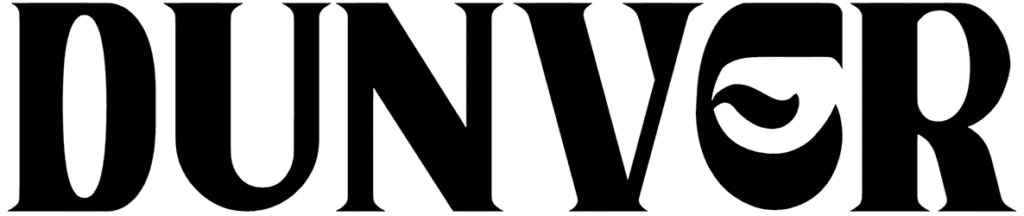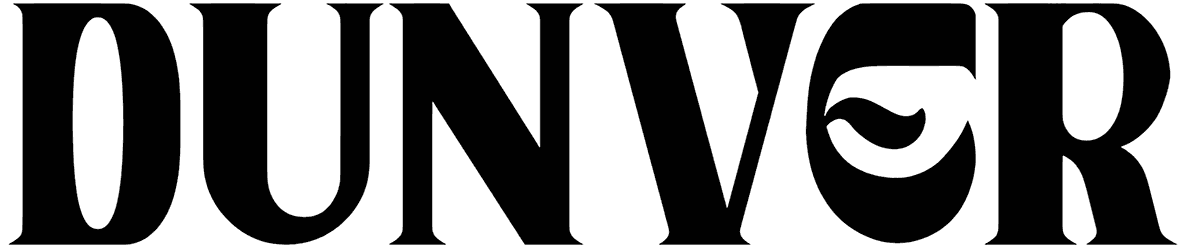
Dunver Font
Sometimes, you’ll find the unique visual touch you’re looking for not in flawless lettering as everyone usually expects, but by including a little imperfection in your artwork, and that’s where Dunver shines. Surely, a psychedelic font like that will be extremely helpful for wowing people.
Looking so quirky and lively, either of the 2 styles of this groovy font lends itself well to modern branding designs for interior design businesses, clothes stores, makeup website banners, and anything from the same genre.